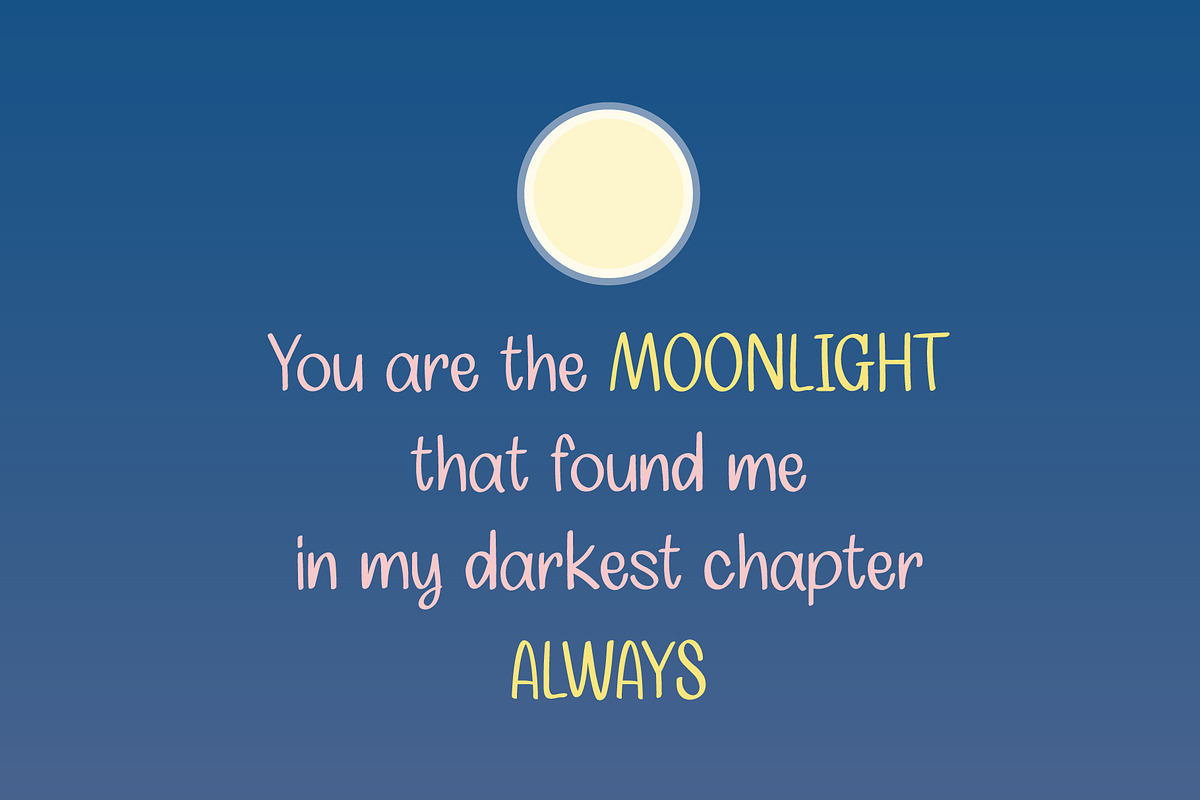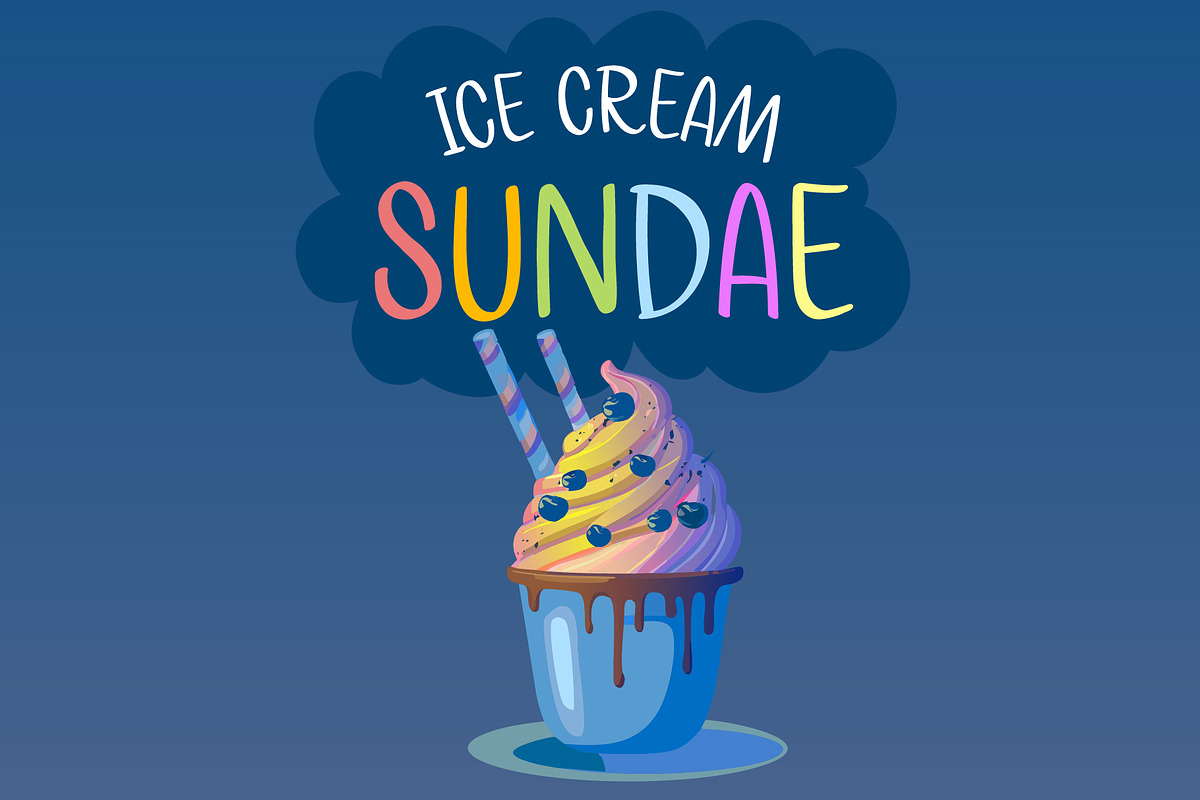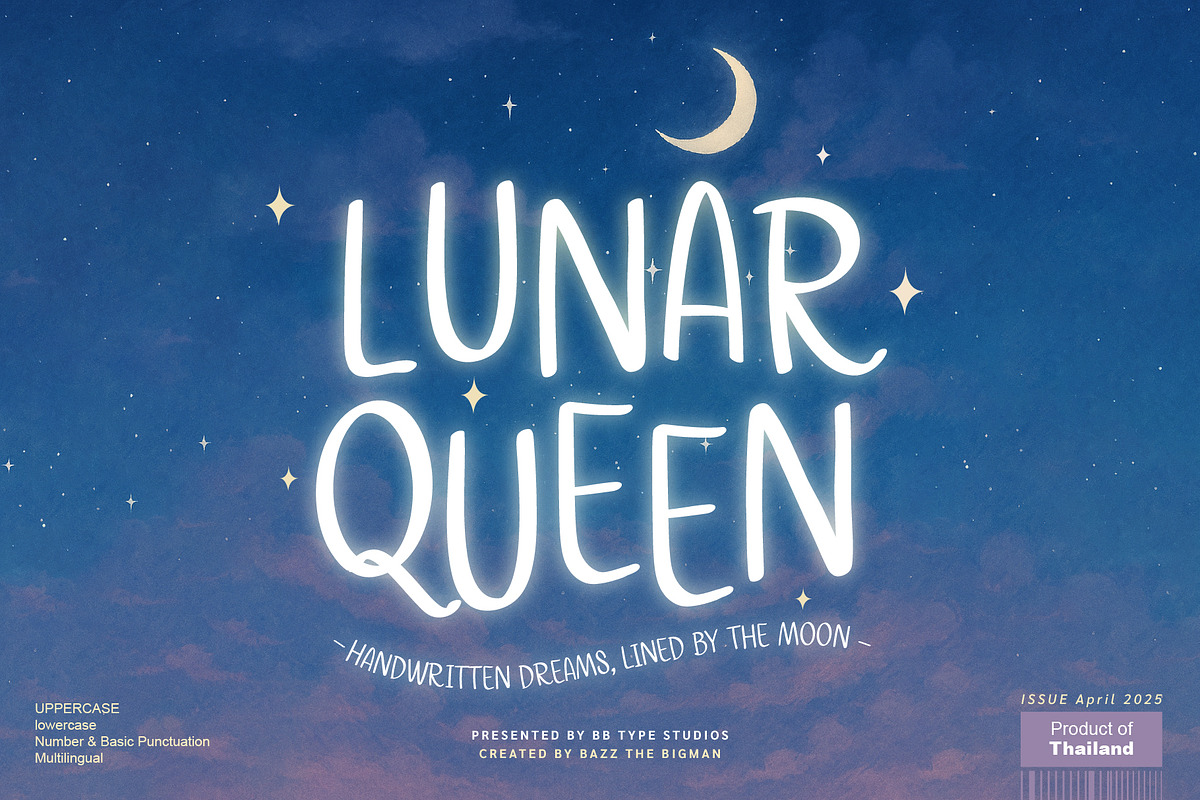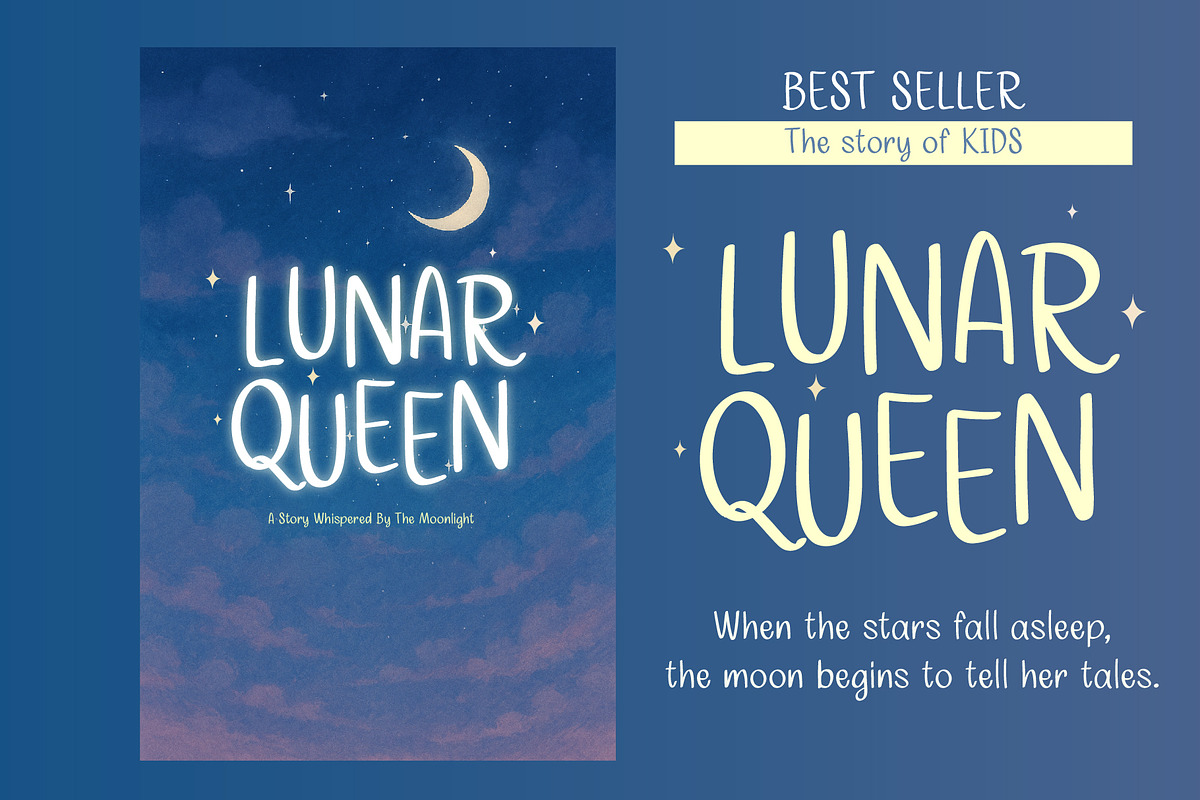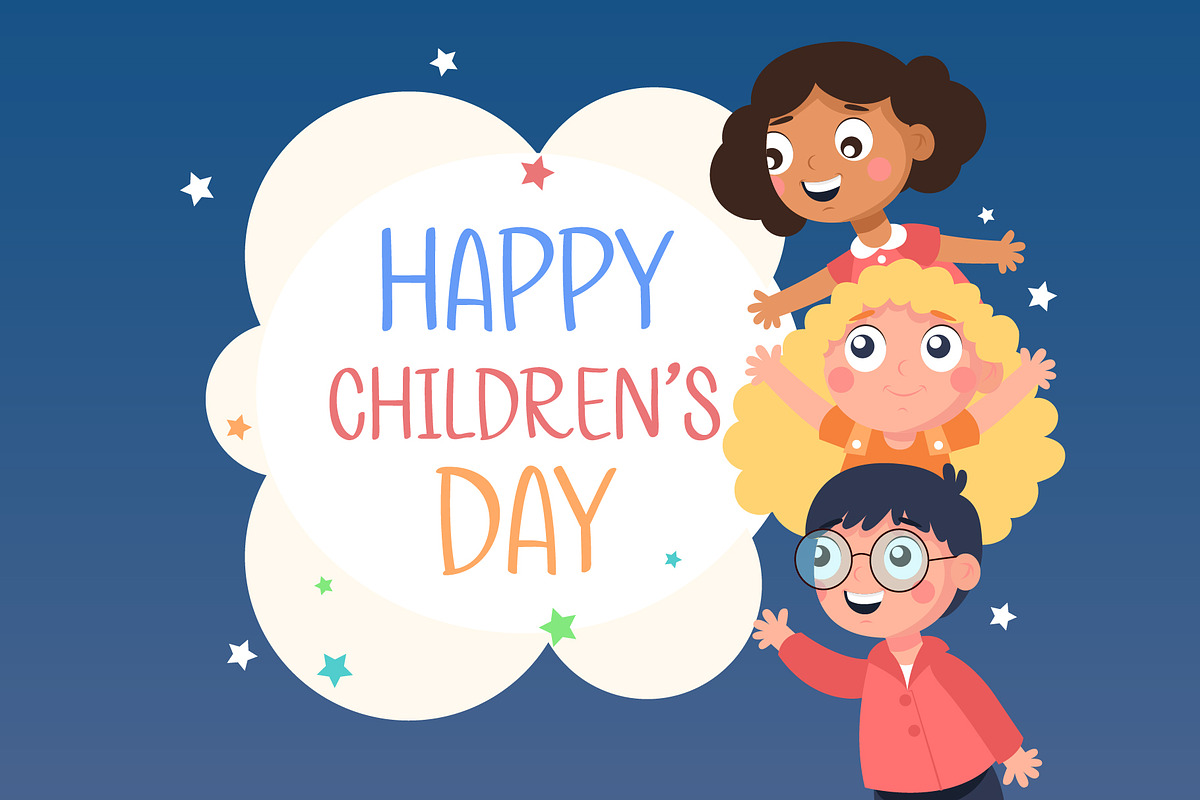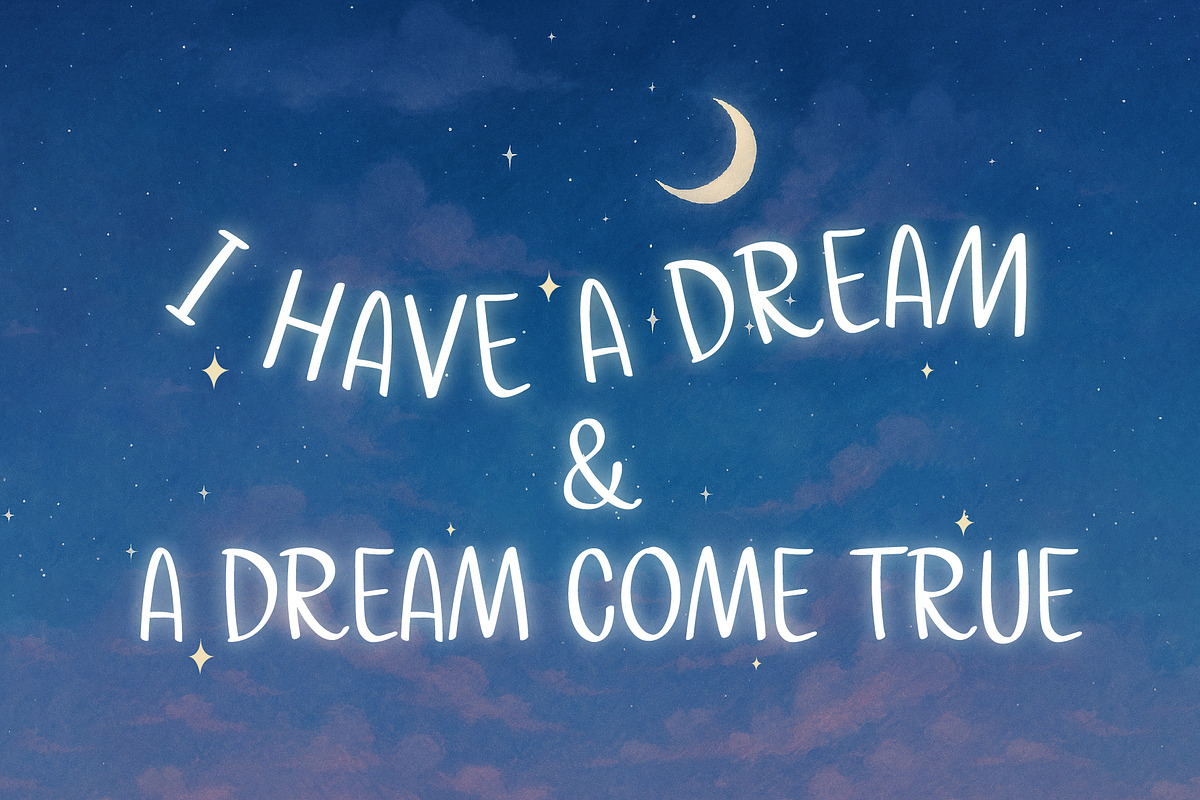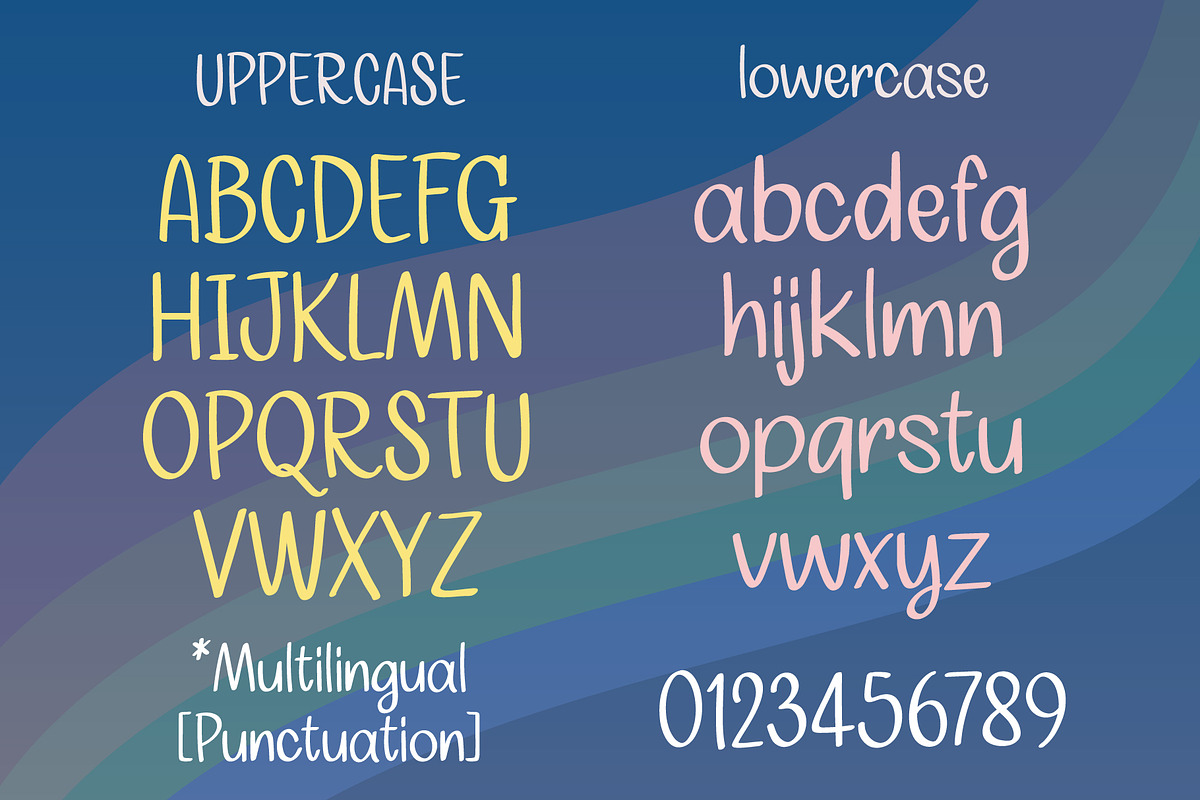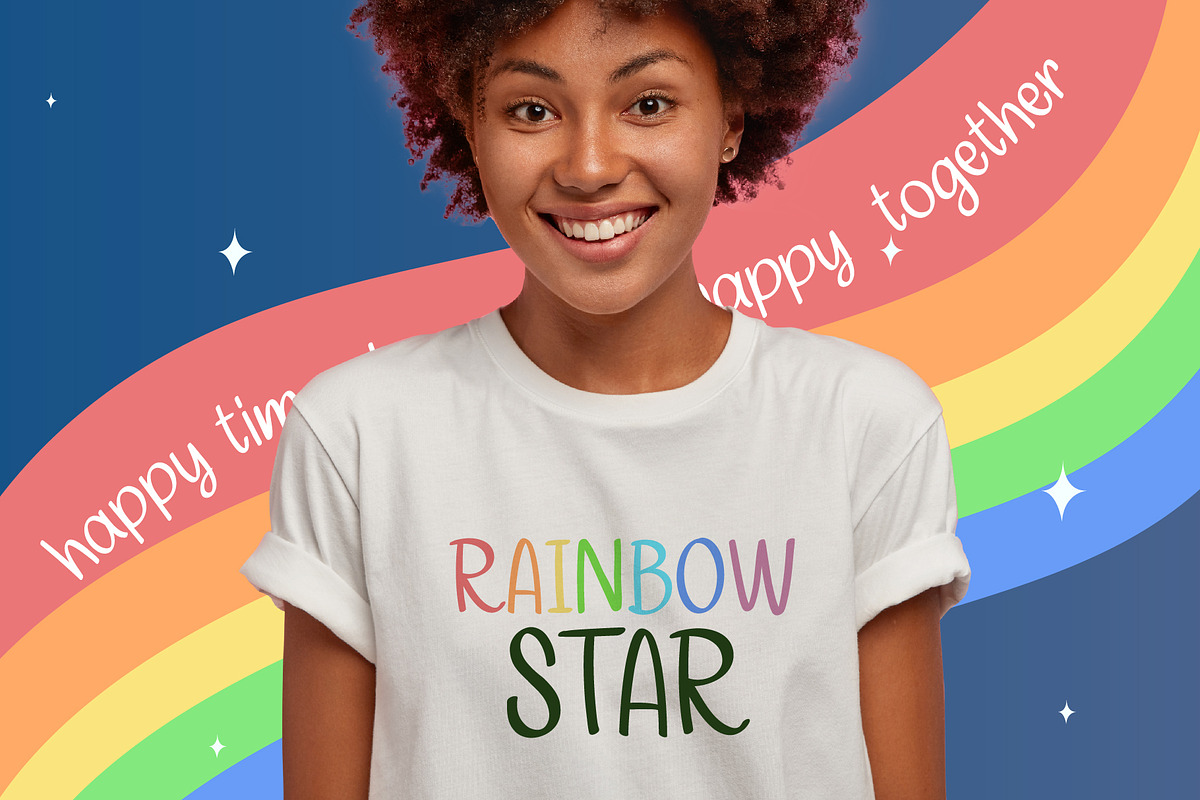
Lunar Queen
Lunar Queen is a clean, modern handwritten font designed to add a subtle personal touch. Its simple, versatile style makes it a great choice for digital designs, book covers, presentations, custom cards, and creative projects of all kinds. With its balanced charm and minimal design, Lunar Queen blends effortlessly into any setting—refined, adaptable, and thoughtfully crafted for everyday use.